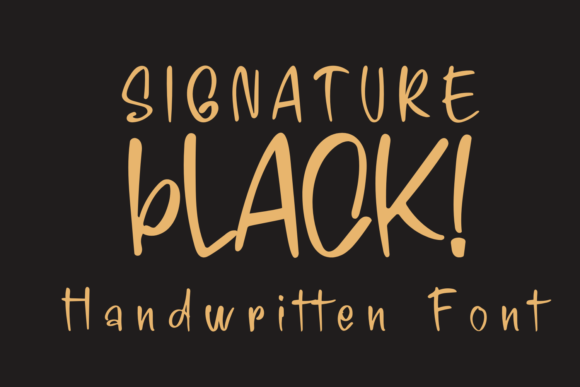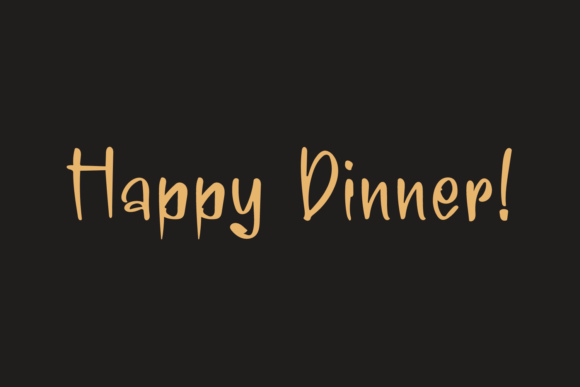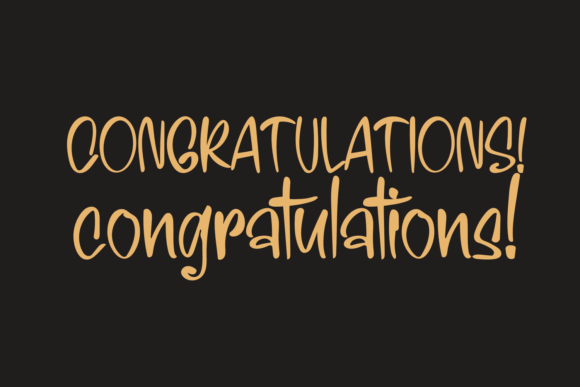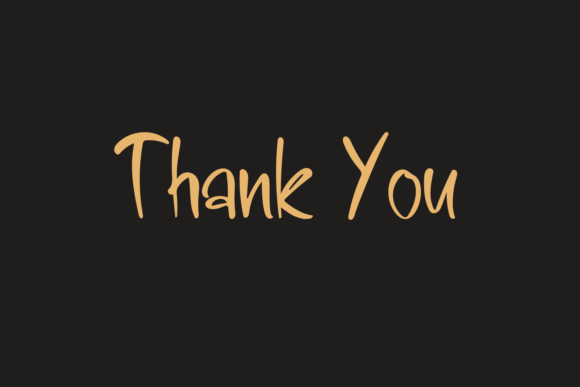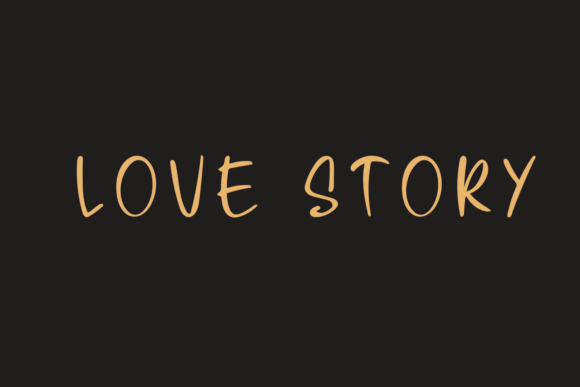
Signature Black Font
About Signature Black Font
Signature Black is a classic handwritten font. A little bit quirky, this font looks incredibly adept on a wide variety of contexts!